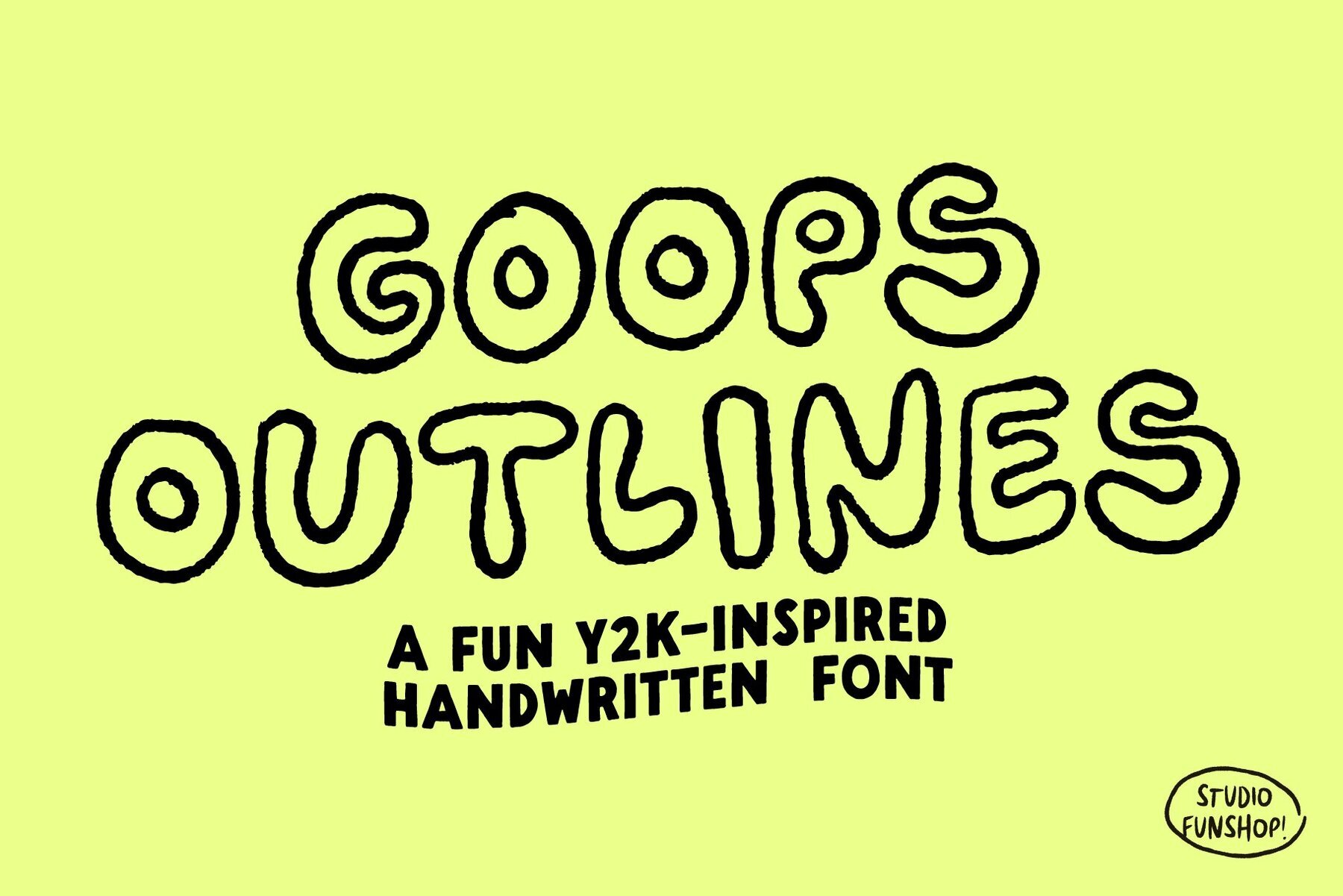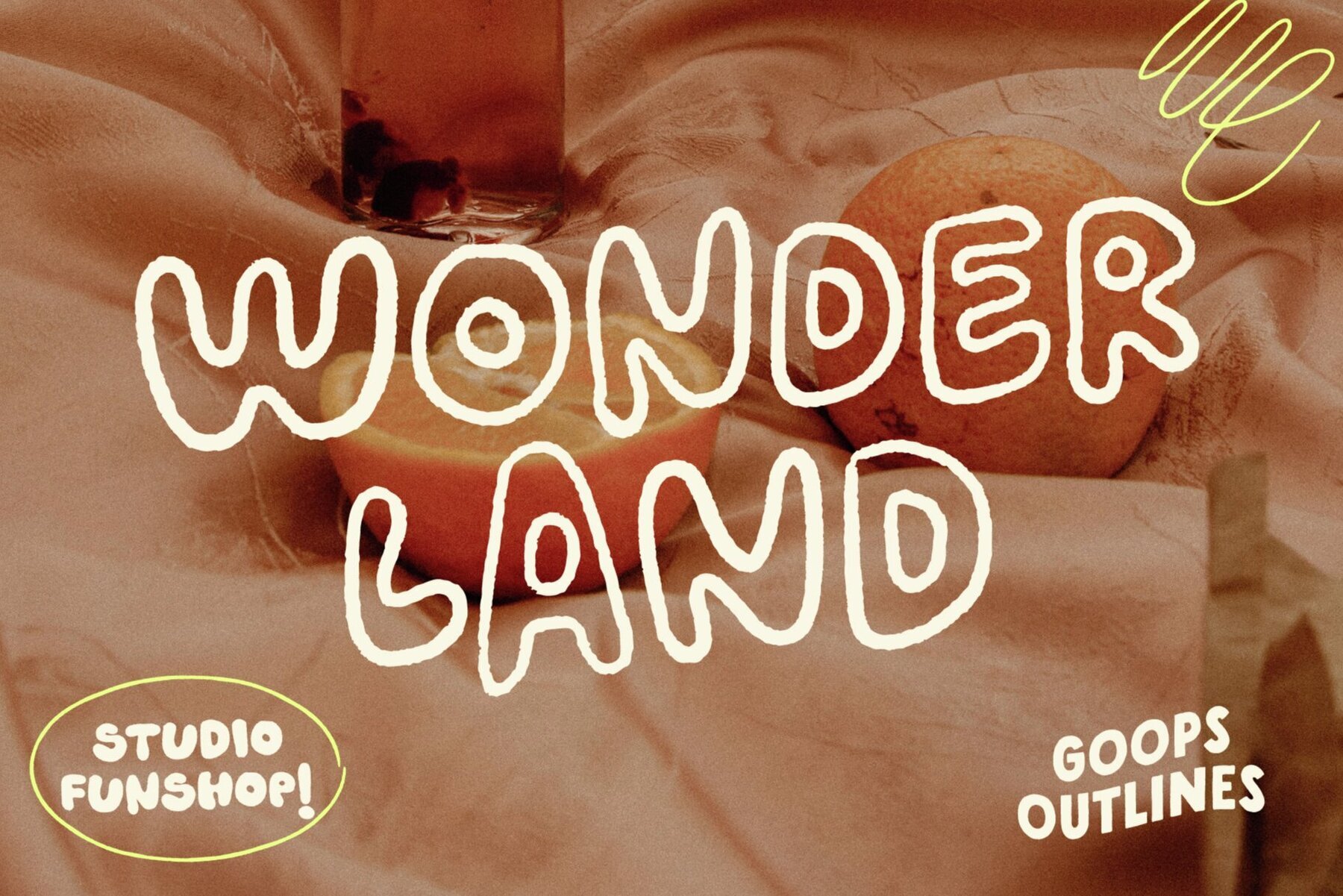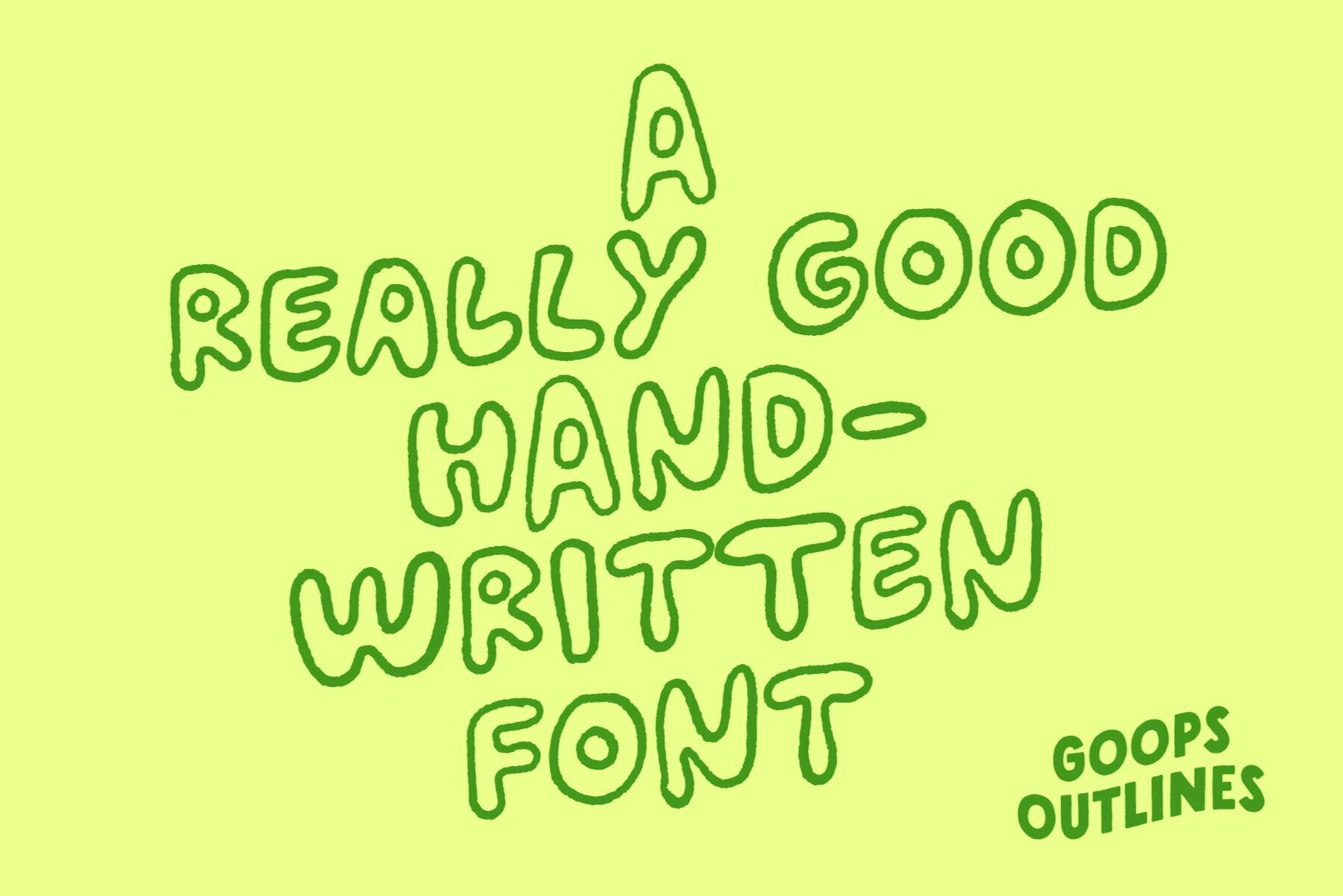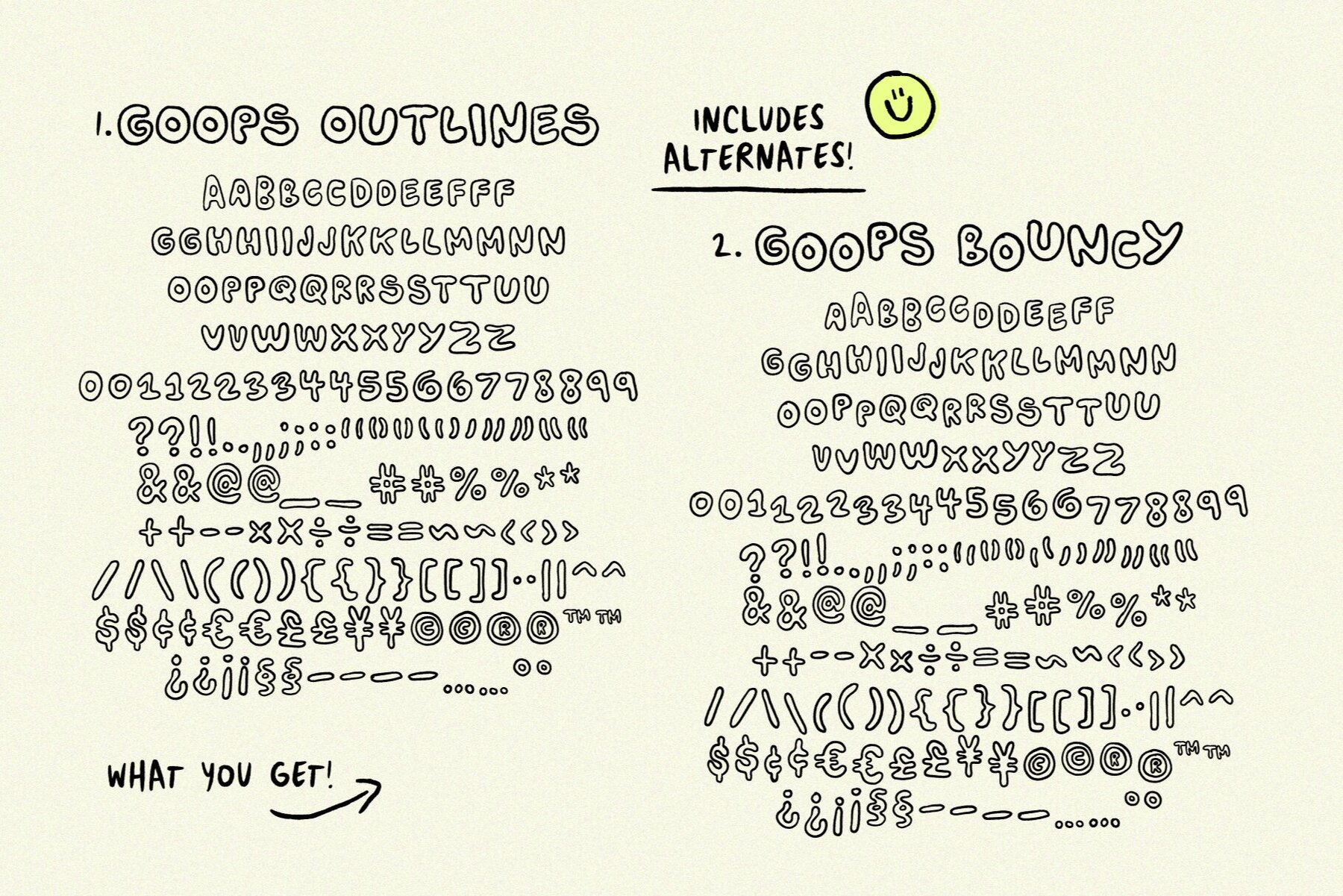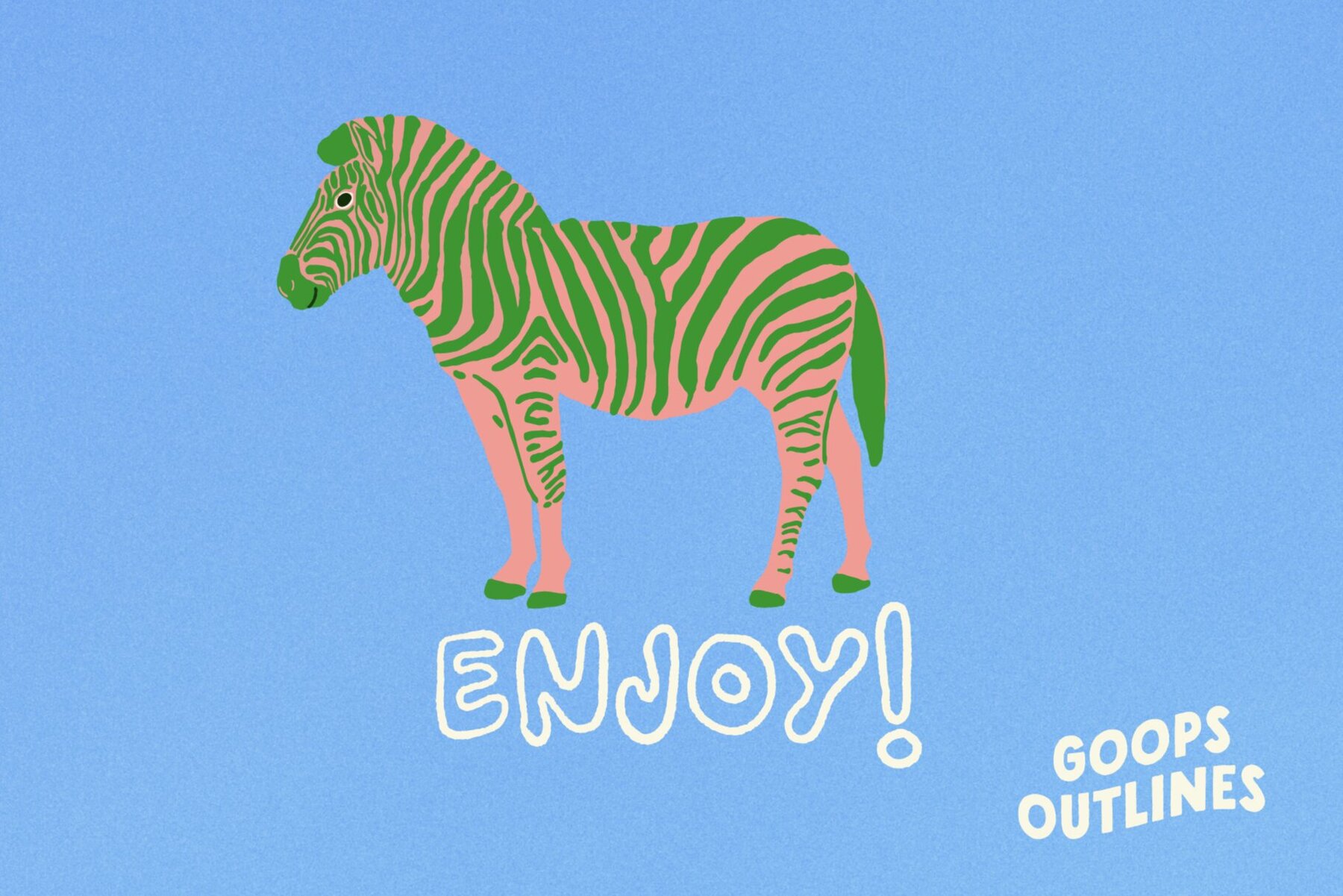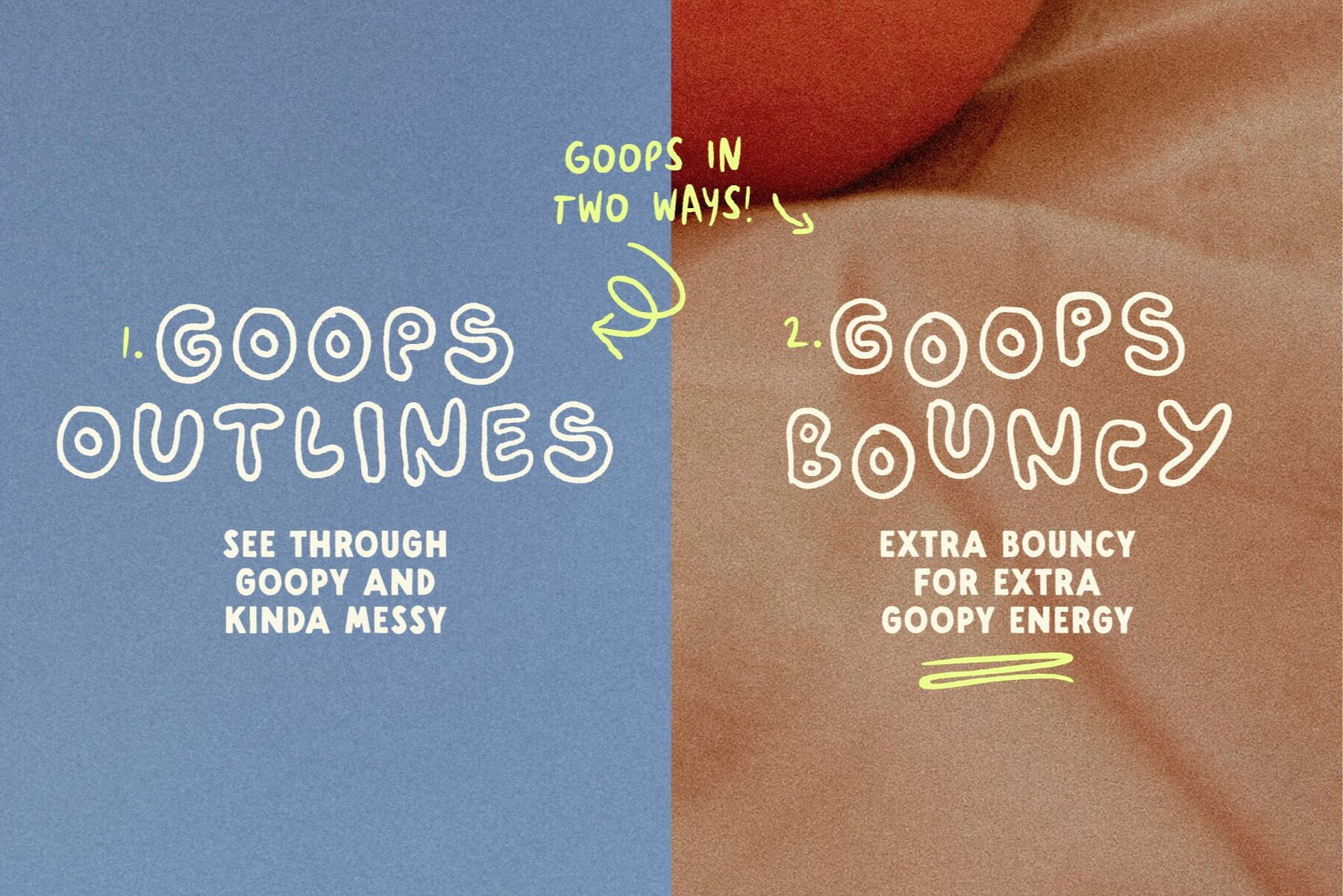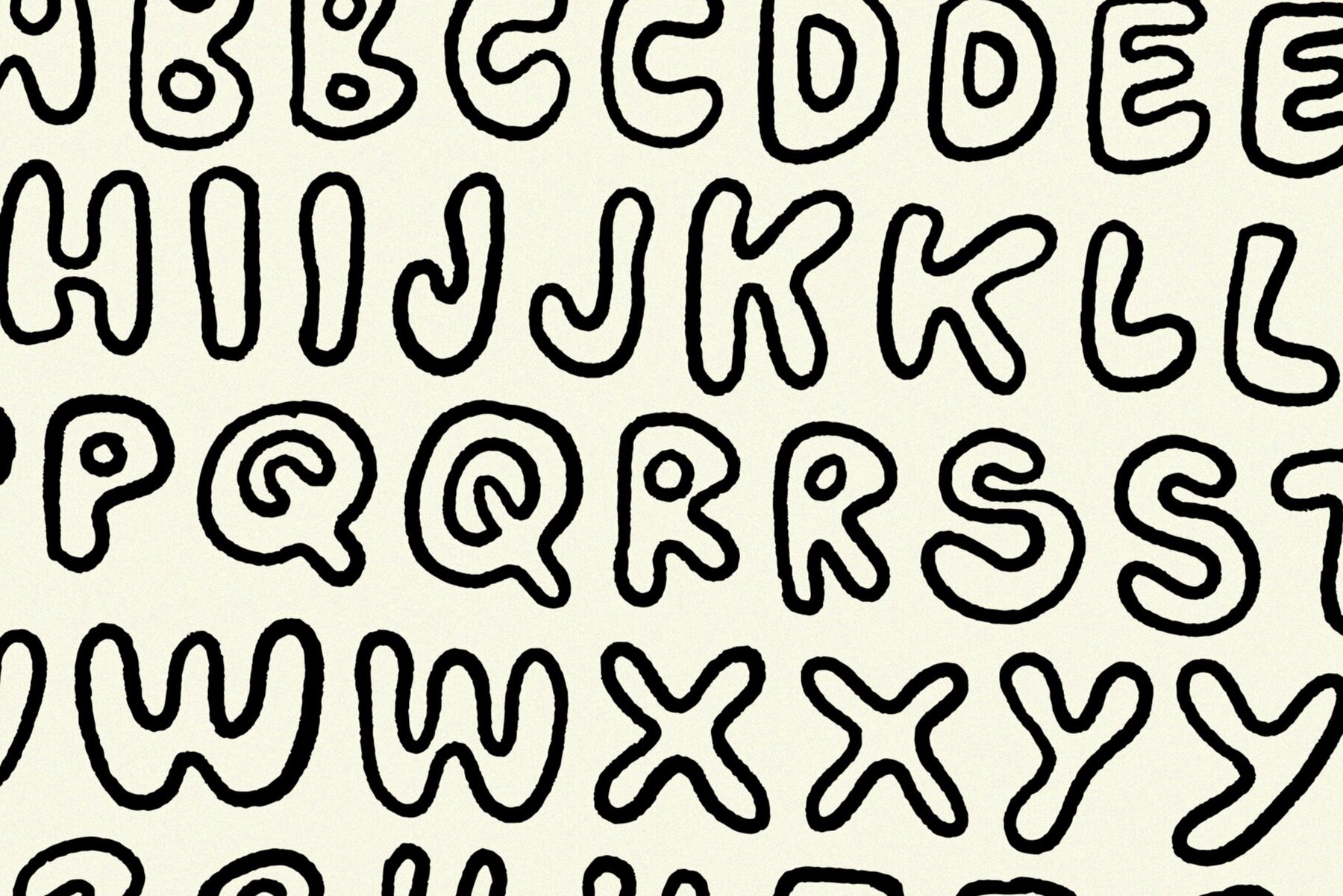
Goops Outlines Font
Goops Outlines brings the lively spirit of the Y2K era right to your fingertips. This playful handwritten bubble font, available in both regular and bouncy styles, combines texture and a hint of gooeyness for unique, imperfect charm that's sure to captivate. Ideal for logos, quotes, art pieces, branding, and much more, Goops Outlines adds a touch of fun to any project.Goops Outlines: Handwritten Bubble Charm